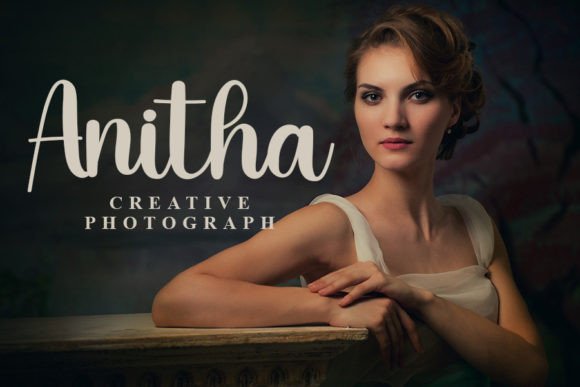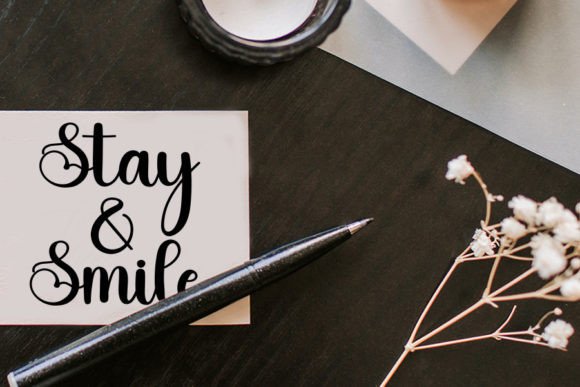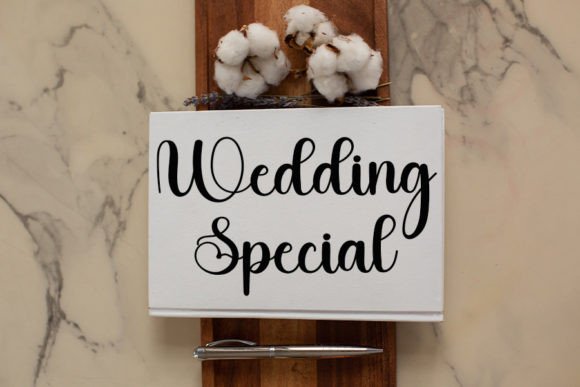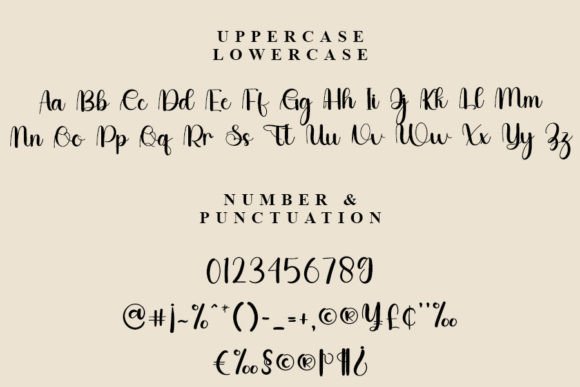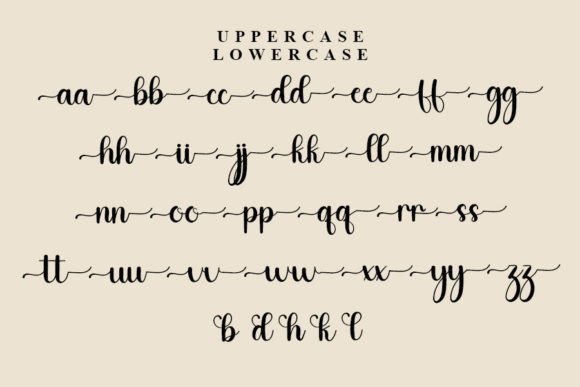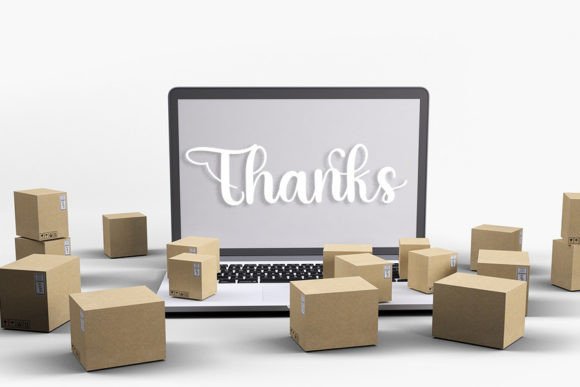
Introduction to Selling Font
As a designer, there’s nothing quite like the thrill of bringing a creative project to life. Whether it’s a wedding invitation, a social media post, or a logo for a new business, the right font can make all the difference. And when you’re working on a project that requires a touch of elegance and sophistication, you’ll want a font that’s just as refined and beautiful.
Enter Selling Font, a stunning handwritten font that’s perfect for designers who want to add a touch of class to their work. With its modern design and high-quality features, Selling Font is a valuable addition to any design resource. Whether you’re looking for a free download or a premium font to elevate your next project, Selling Font is an excellent choice.
With a transparent background and a range of styles to choose from, Selling Font is a versatile design tool that’s sure to impress. And with its high-quality features, you can trust that your designs will look their absolute best – every time.
- Perfect for use in creative projects, including logos, branding, packaging, and advertising materials, where a unique and stylish design is required.
Honest Review: Selling Font
As a designer, I’m always on the lookout for high-quality fonts to elevate my creative projects. Recently, I stumbled upon Selling Font, a popular design resource that offers a wide range of fonts for download.
What works well: ✨ The font selection is vast and diverse, catering to various design styles and needs. The fonts are high-quality, with clear and legible characters, making them perfect for both digital and print projects. Additionally, the website is user-friendly, with easy navigation and a transparent background that makes it easy to focus on the fonts.
- High-quality fonts with clear and legible characters